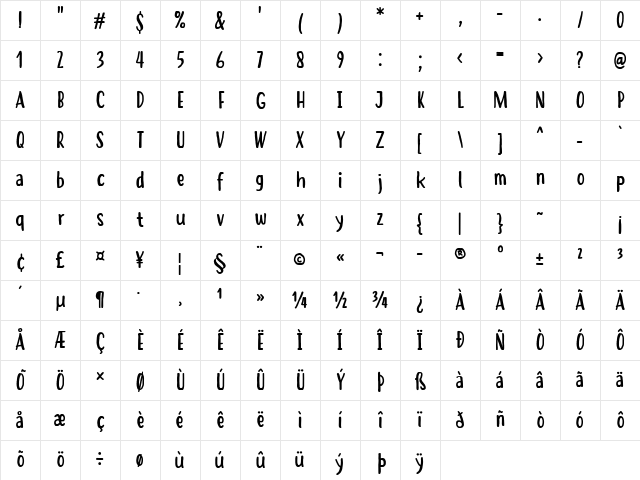
Hastoler is a composed and adaptable typeface that performs quietly and consistently across a wide range of design contexts.
Pro Tip: Use Hastoler in both headline and body roles to test its range before committing to a single application.